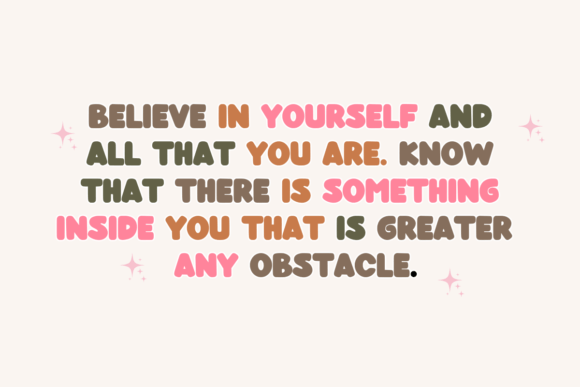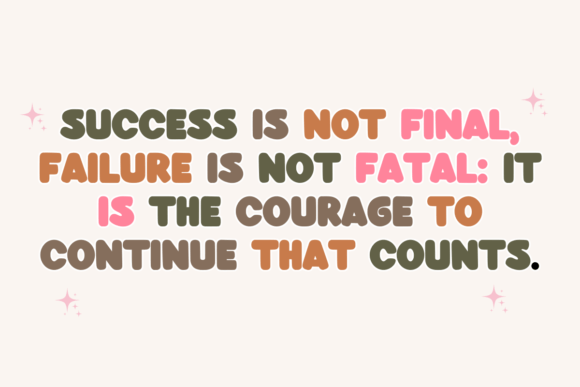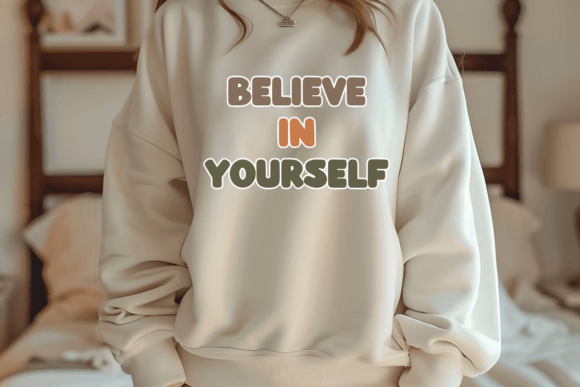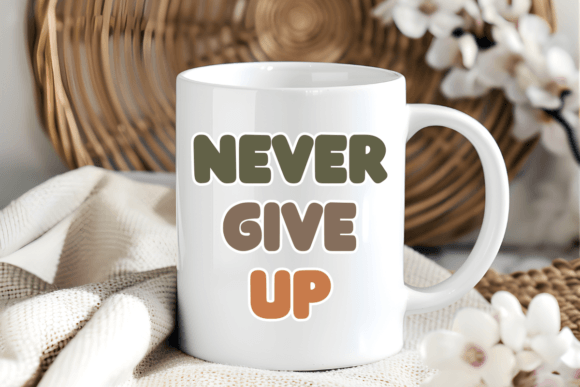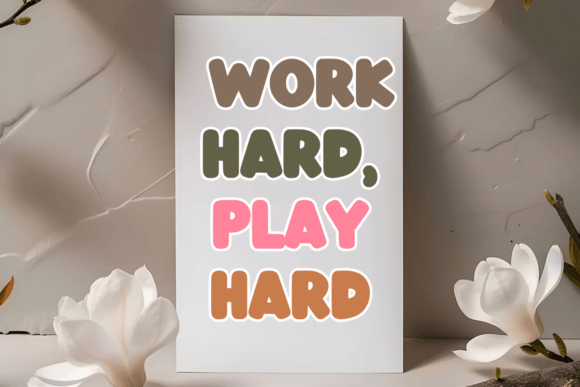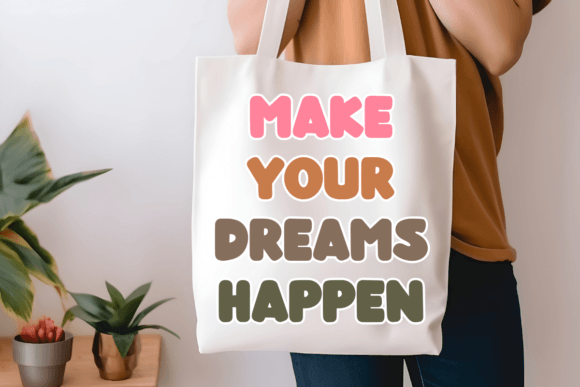
Introduction to Love Girl Font Font
Fonts play a crucial role in design, and the Love Girl Font font is a typeface that brings both character and versatility to any project. Whether you’re working on a branding project, a website, or a print design, the Love Girl Font font offers a unique style that can elevate your work.
Love Girl is a bold playful display font.
this font is ready to be used in any project Very suitable for logotype, headlines, brand identity, t shirt or apparel industry, posters, magazines, books, YouTube, Instagram, websites, or any of your creative design projects.
Key Features of Love Girl Font Font
Why Choose Love Girl Font Font?
The Love Girl Font font is more than just a typeface – it’s a design tool that helps you communicate your message with style and clarity. Its unique character set and versatile design make it suitable for a wide range of applications, from elegant invitations to bold headlines.
With its carefully crafted letterforms and balanced proportions, the Love Girl Font font ensures readability and visual appeal across all mediums.
What makes Love Girl Font font special?
The Love Girl Font font stands out with its unique design, exceptional readability, and versatility across various design applications.